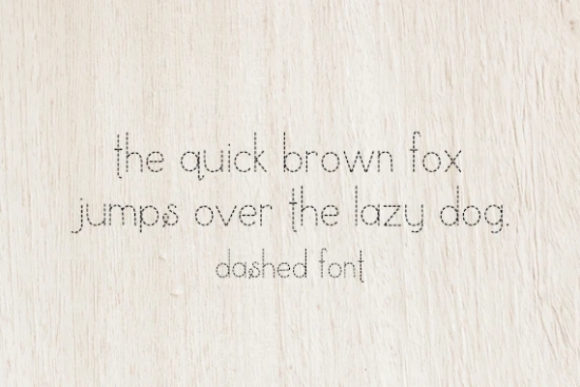
Introducing Dashed Font: A Unique Typographic Style for Modern Design
In the world of typography, fonts play a crucial role in conveying the tone and personality of a design project. With the numerous font styles available, it can be challenging to find the perfect one that complements your design needs. However, if you’re looking for a font that brings a classic touch with a modern twist, look no further than Dashed Font. Inspired by traditional typography, Dashed Font offers a distinct style that will elevate any design project to new heights.
The Perfect Balance of Smooth and Sharp
Dashed Font is characterized by its perfectly balanced mix of smooth and sharp elements. This unique blend allows it to complement any design need perfectly, making it an ideal choice for designers and crafters. The font’s smooth curves and lines provide a touch of elegance, while its sharp edges add a hint of sophistication. This balance ensures that Dashed Font can be used in a wide range of design projects, from modern digital designs to traditional print materials.
Classic Inspiration with a Modern Twist
Dashed Font draws inspiration from classic typography, but it also brings its own unique style to the table. The font’s design is rooted in traditional typographic principles, ensuring that it maintains a level of timelessness and sophistication. However, its modern twist sets it apart from more traditional fonts, making it perfect for designers who want to add a touch of contemporary flair to their work.
One of the standout features of Dashed Font is its versatility. The font can be used in a variety of design projects, including:
- Branding and logos: Dashed Font’s unique style makes it perfect for creating memorable and impactful logos.
- Digital designs: The font’s smooth curves and sharp edges ensure that it looks great on digital platforms, from websites to social media graphics.
- Print materials: Dashed Font is also suitable for traditional print materials, such as brochures, posters, and business cards.
- Crafting and DIY projects: The font’s classic inspiration and modern twist make it a great choice for crafters and DIY enthusiasts who want to add a personal touch to their projects.
Why Choose Dashed Font?
With so many fonts available, why should you choose Dashed Font for your design project? Here are just a few reasons:
- Unique style: Dashed Font offers a distinct style that will set your design project apart from others.
- Versatility: The font can be used in a wide range of design projects, making it a great addition to any design library.
- Timelessness: Dashed Font’s classic inspiration ensures that it will remain a timeless choice for years to come.
- Ease of use: The font is easy to read and use, making it perfect for designers of all skill levels.
| Font Name | Dashed Font |
In conclusion, Dashed Font is a unique and versatile typographic style that brings a classic touch with a modern twist to any design project. Its perfectly balanced mix of smooth and sharp elements makes it perfect for a wide range of design needs. Whether you’re a designer, crafter, or DIY enthusiast, Dashed Font is a great choice for anyone looking to add a touch of sophistication and elegance to their work.
Get Creative with Dashed Font